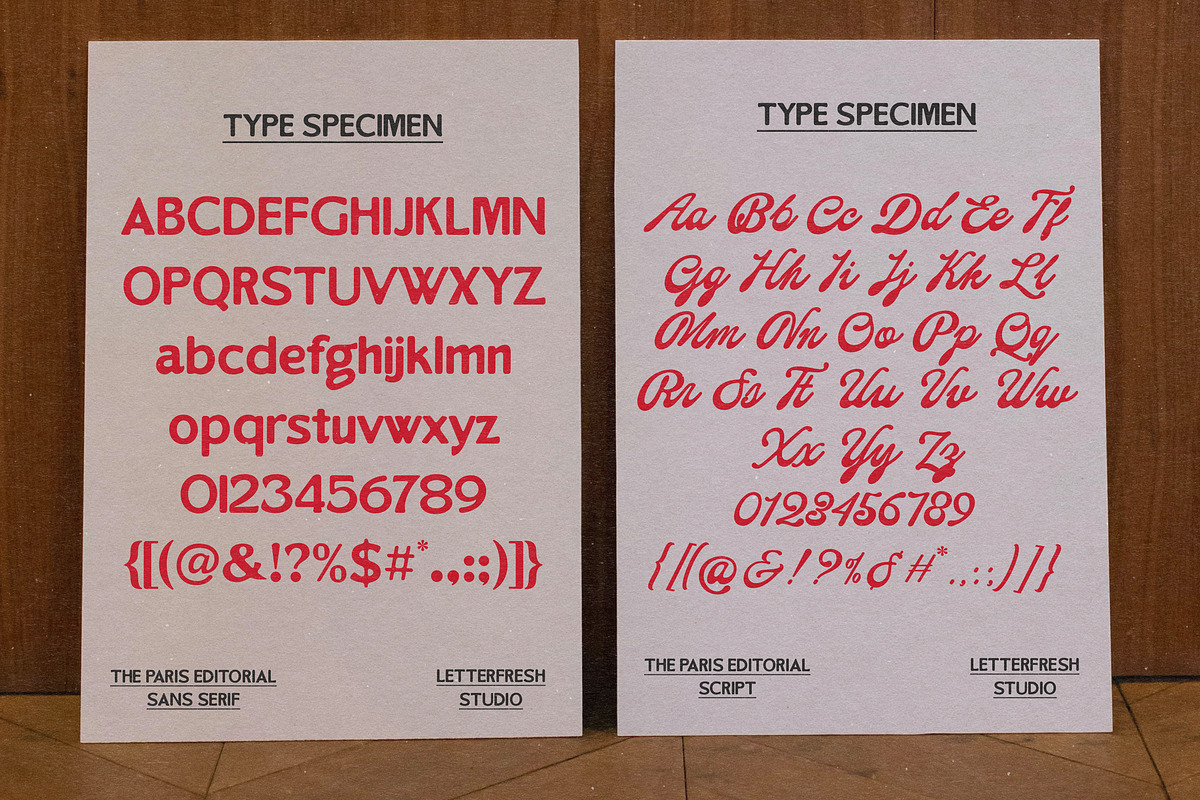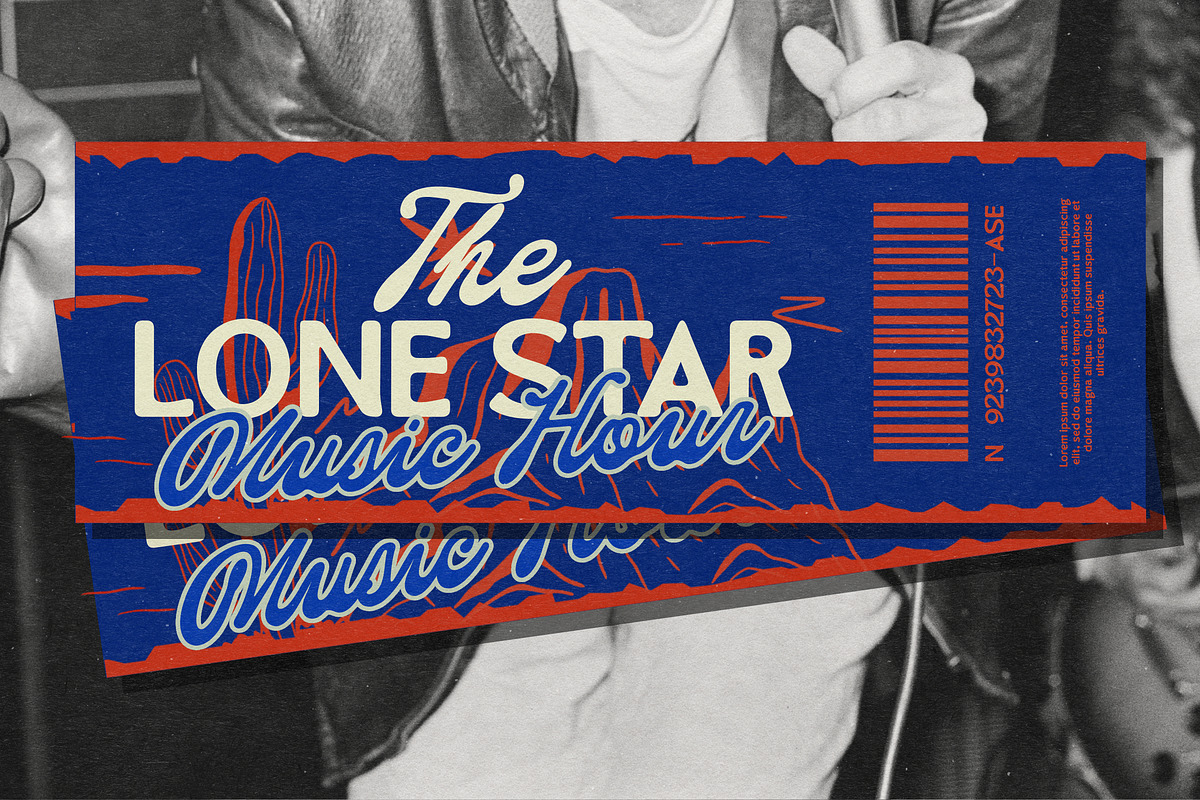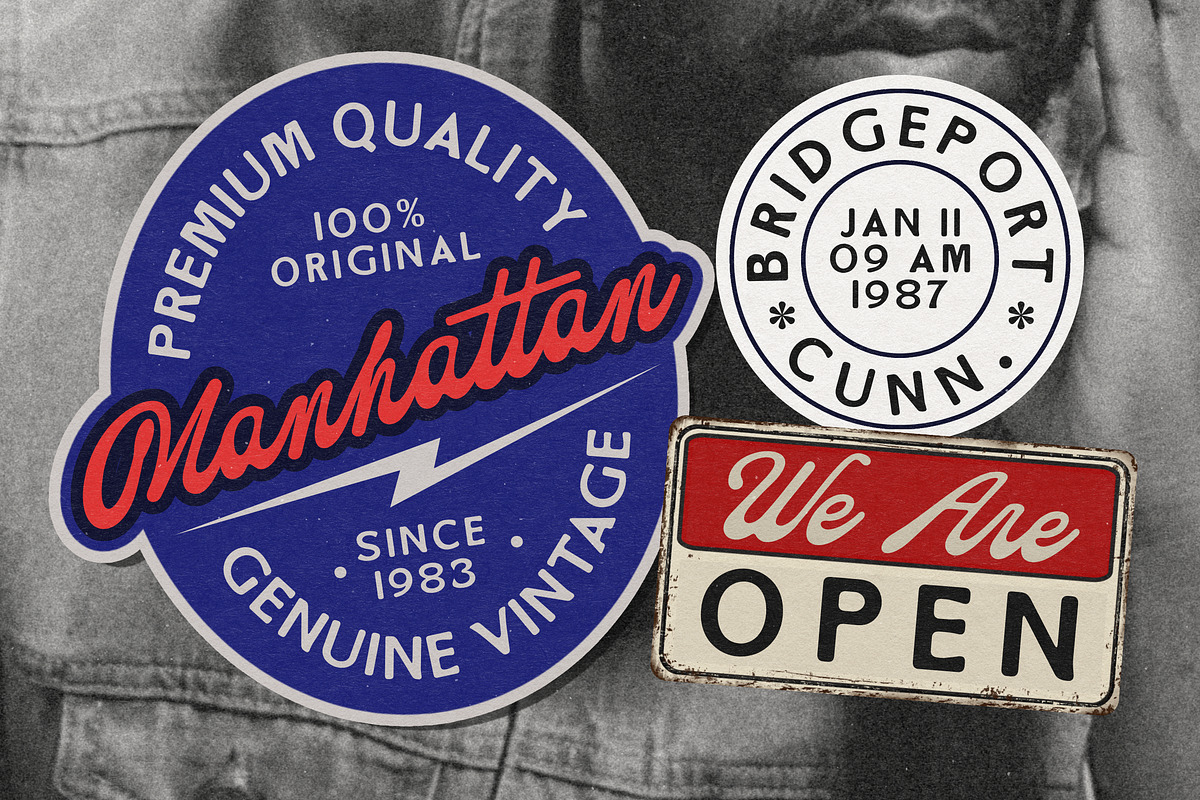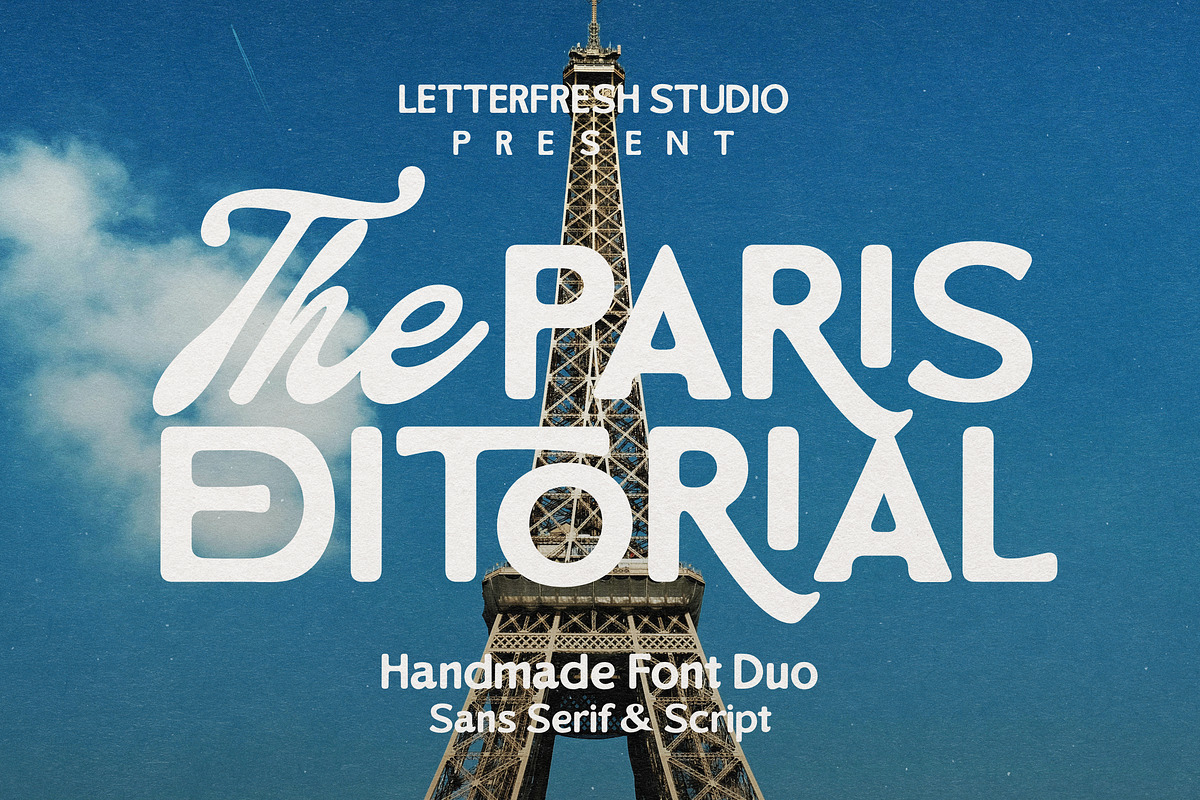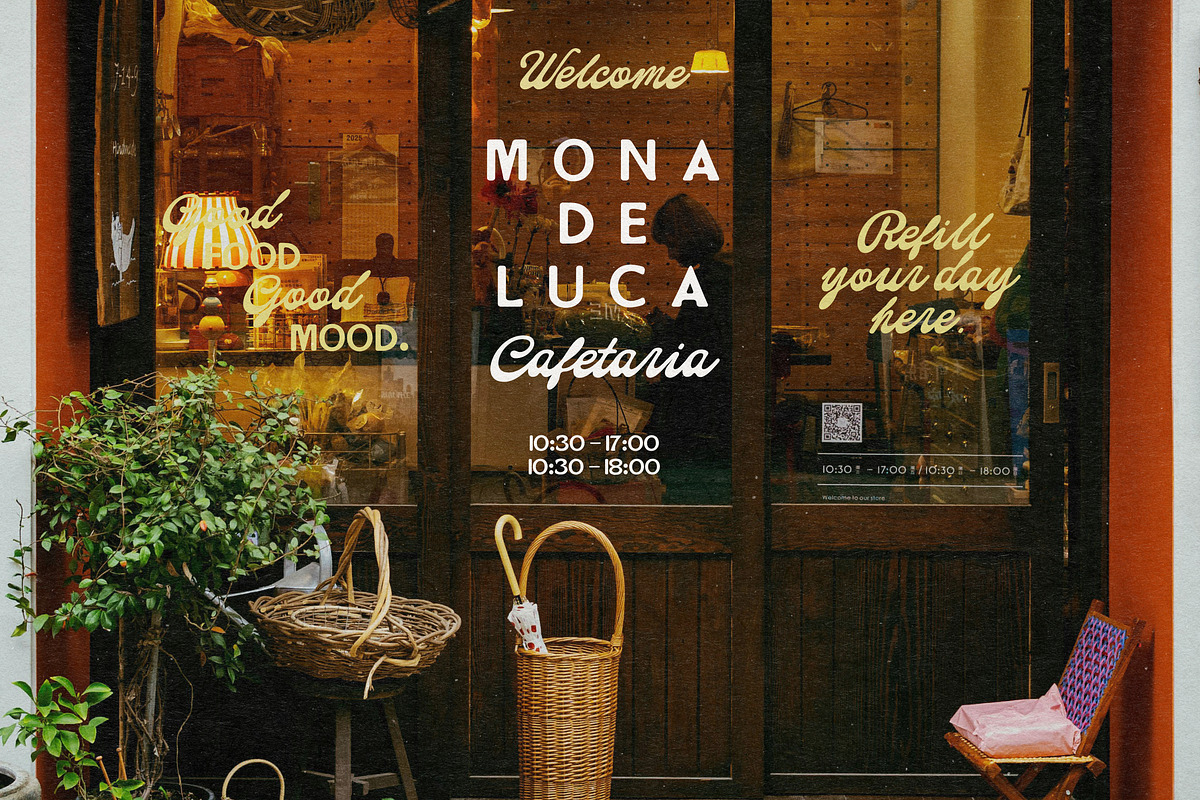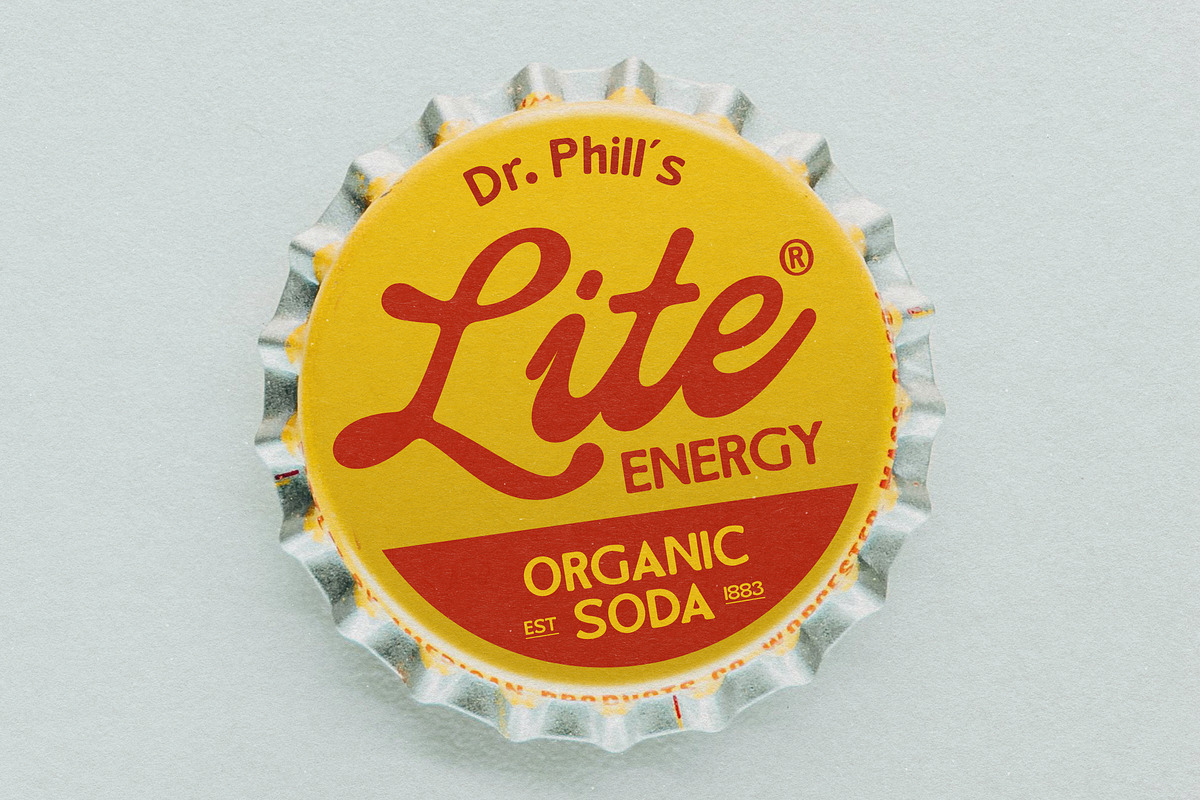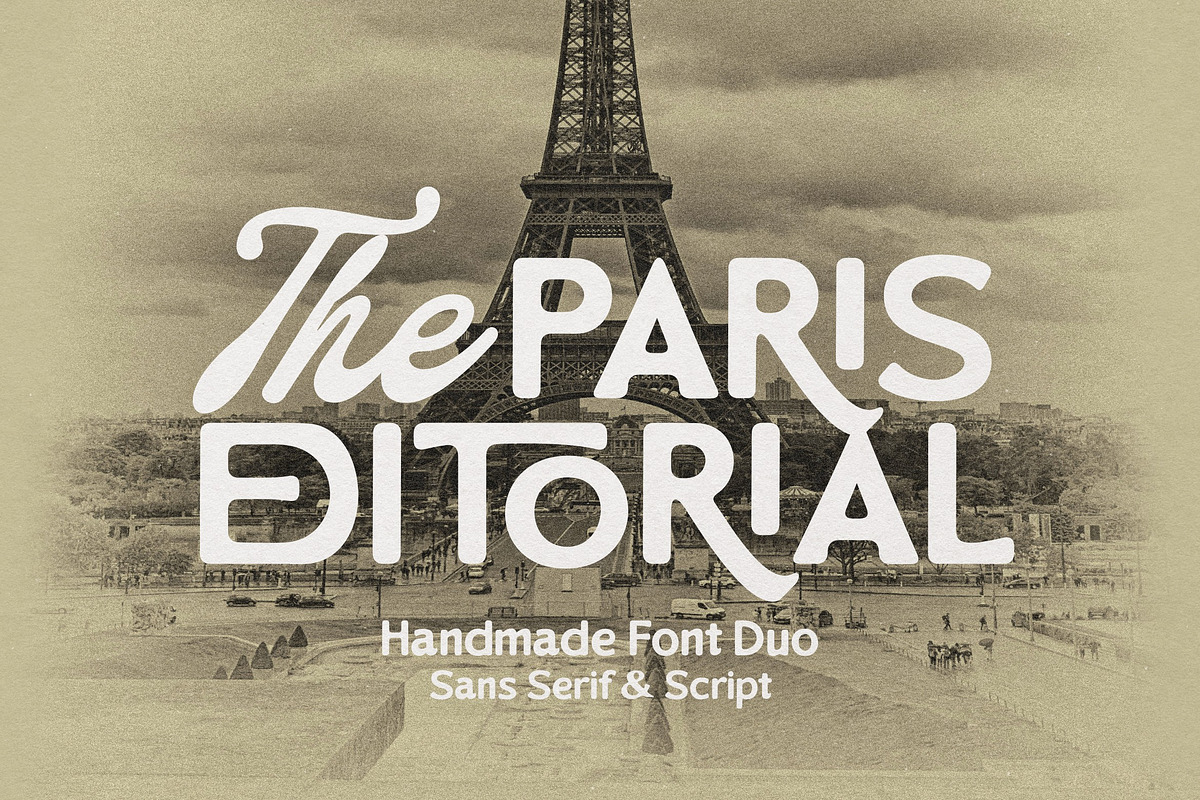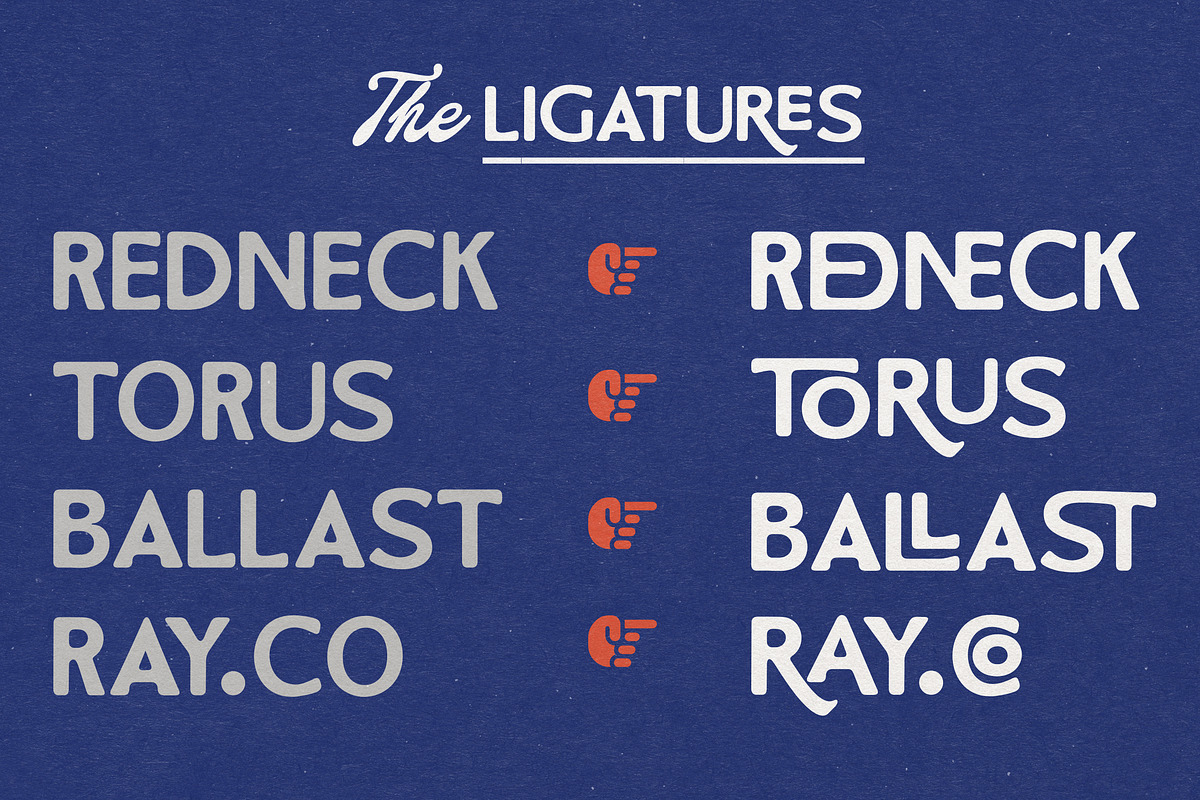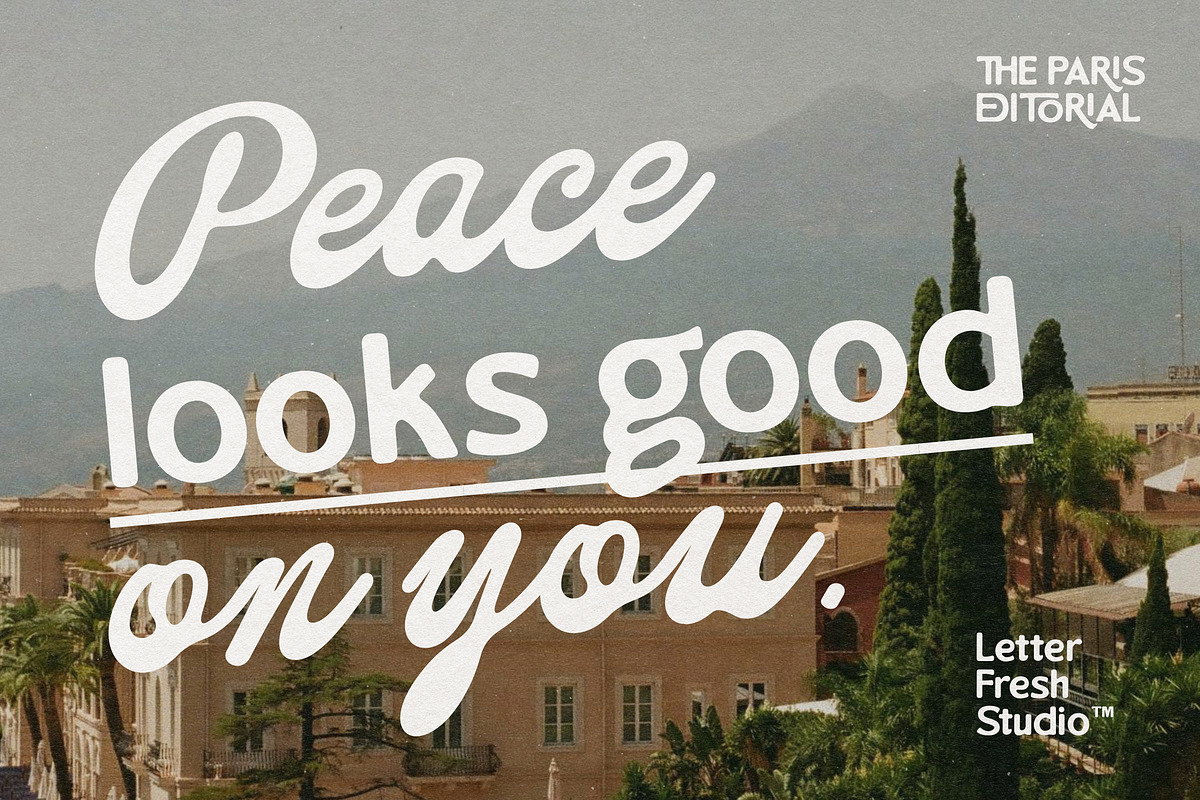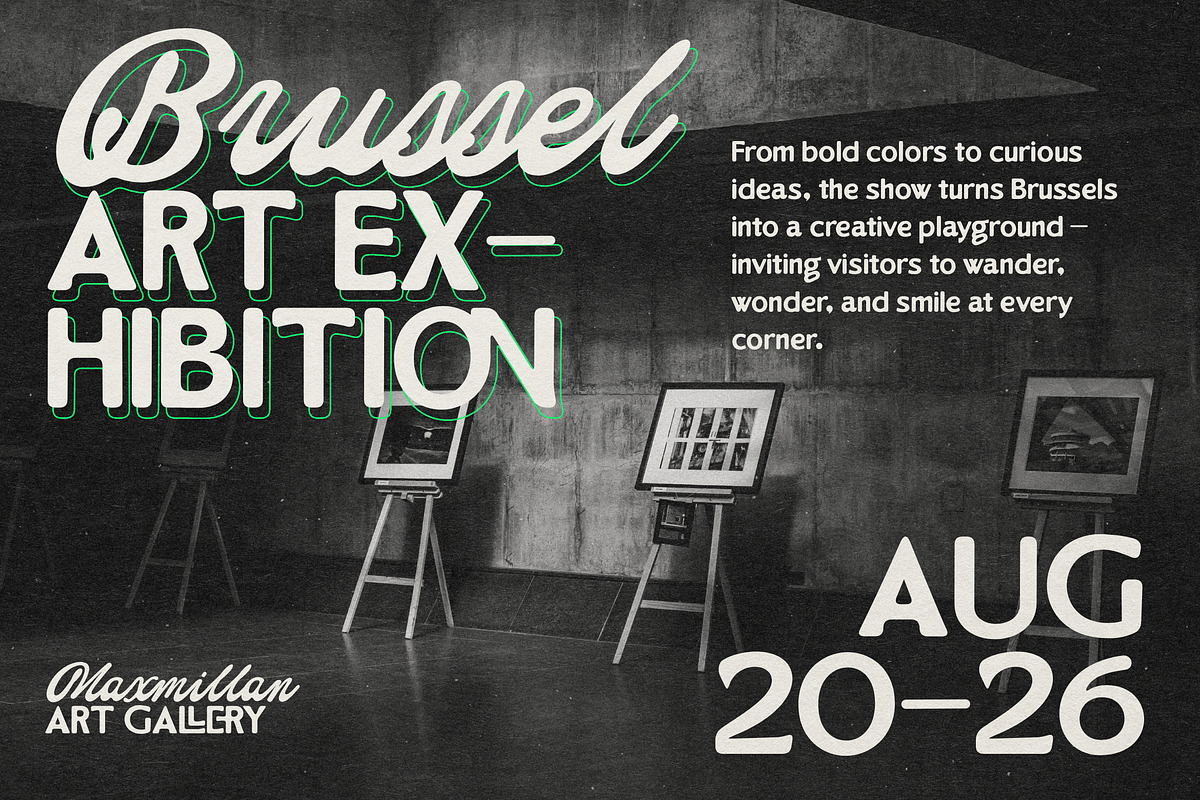
The Paris Editorial Duo
The Paris Editorial Duo, a sweet and gentle font duo! With a bold, rounded sans font and a flowing handwritten script, this playful combination strikes the right balance between bold and friendly. Perfect for product labels, greeting cards, social media posts, branding projects, logo designs, packaging, quotes, and more.